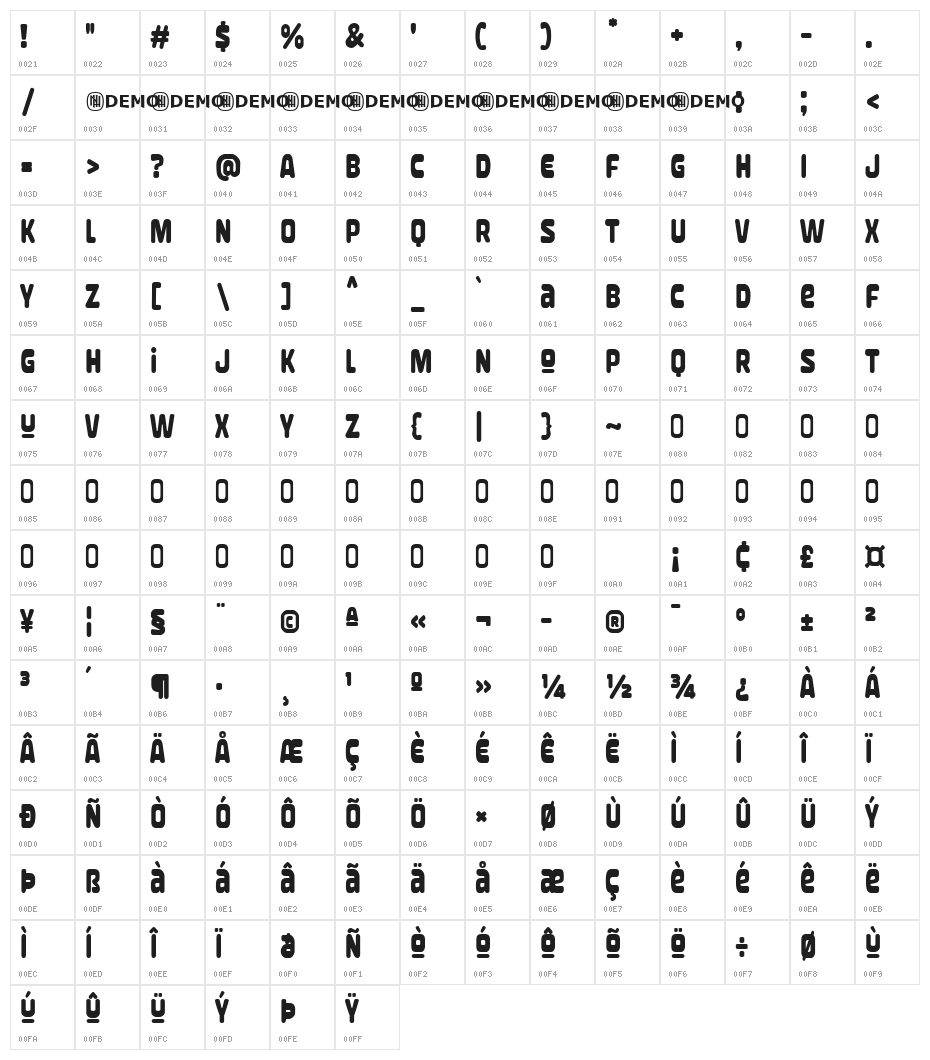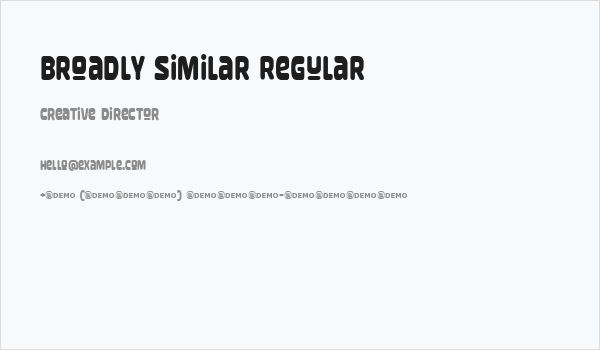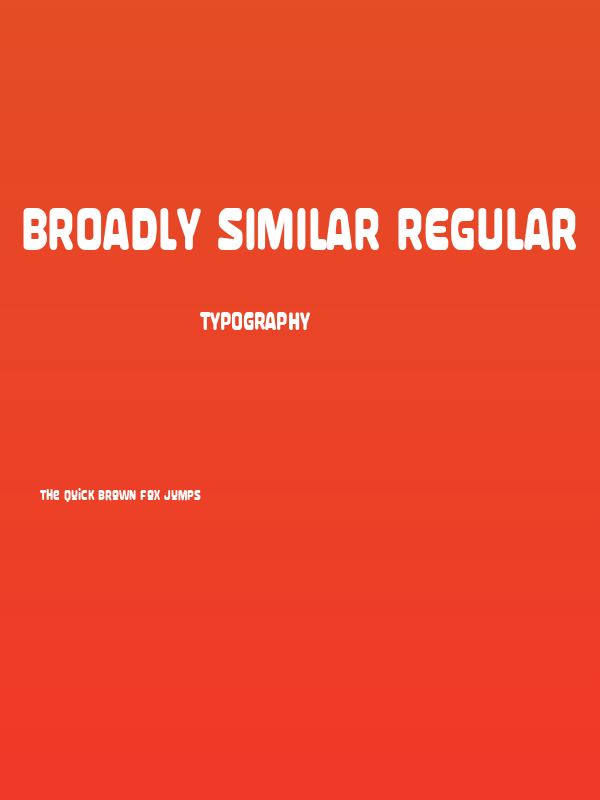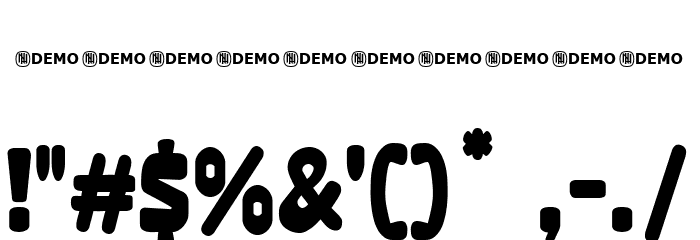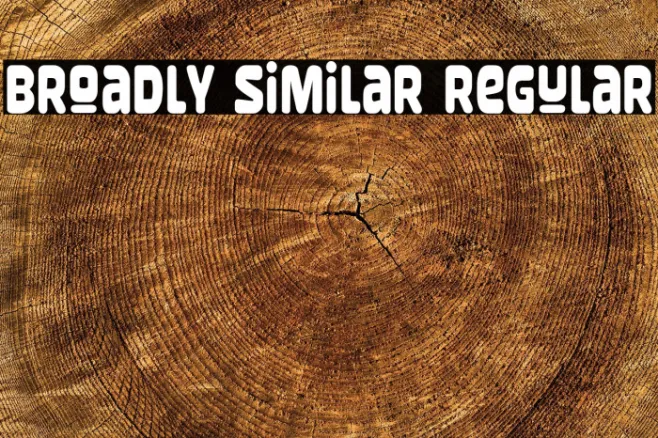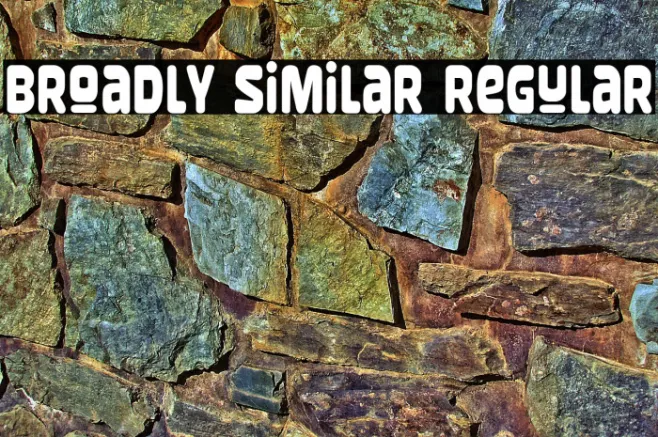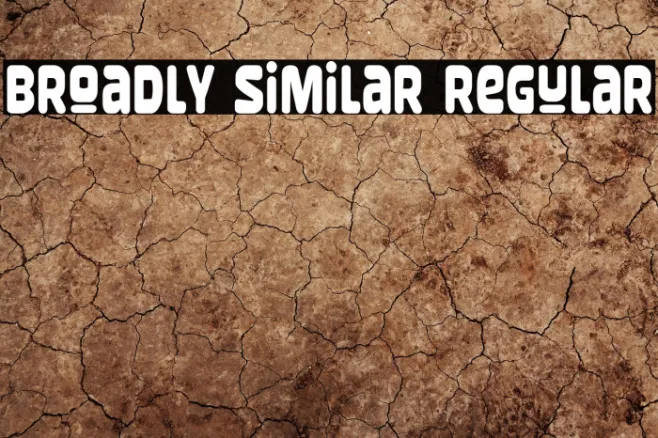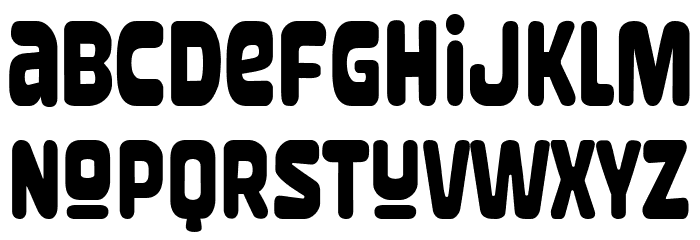
Broadly Similar Regular Font
Broadly Similar Regular Description
This font features bold, rounded characters with a playful and modern aesthetic. The uppercase and lowercase letters maintain a consistent thickness, contributing to a cohesive look. The characters are slightly condensed, enhancing readability while maintaining a unique style. The font includes a full set of numerals and a variety of special characters, making it versatile for different design needs. Its smooth curves and uniform stroke width give it a friendly and approachable appearance, suitable for both digital and print media.